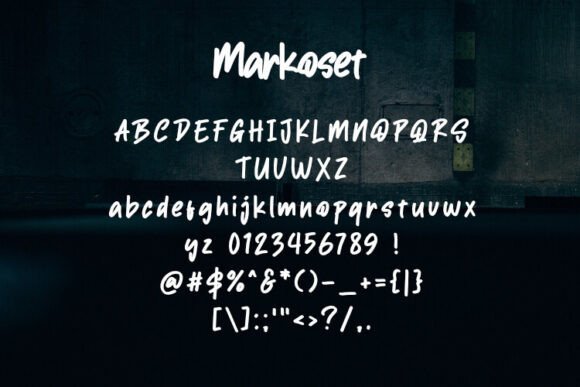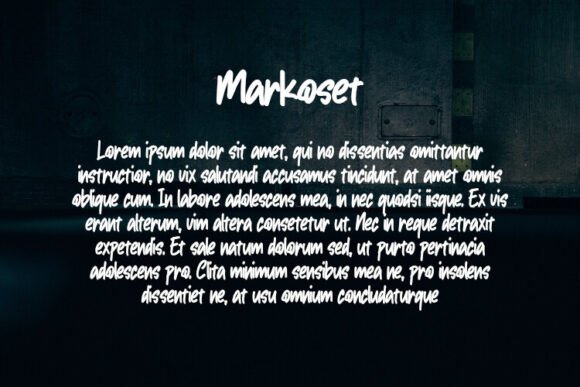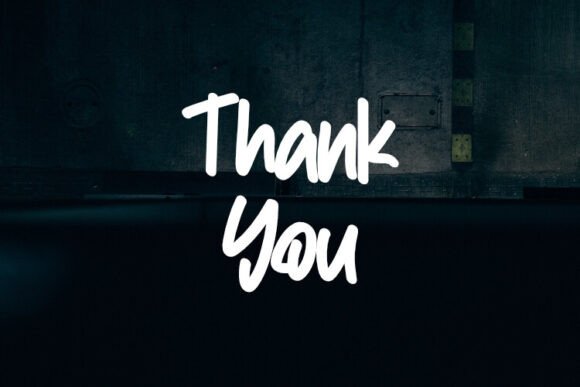
Introduction to Markoset Font
As a designer, you’ve likely found yourself stuck in a creative rut, searching for that perfect font to elevate your project. The moment you stumble upon a high-quality design resource that perfectly captures the essence of your vision is pure magic. For me, that moment came when I discovered the Markoset Font – a versatile and attractively crafted font that has been a game-changer for my creative projects.
From transparent backgrounds to intricate details, Markoset Font offers endless possibilities for your creative project. In this article, we’ll delve into the world of Markoset Font, exploring its features, benefits, and how you can incorporate it into your next design. Get ready to unlock the full potential of your designs with this incredible design resource!
Key Features of Markoset Font
- High-quality design resource perfect for creative projects
- Transparent background for seamless integration into various design elements
- Available in a range of sizes, from 18 to 72 points, making it versatile for various applications
- High-resolution design (300 DPI) suitable for print and digital use
- Unique, modern script font ideal for adding a touch of elegance to any creative project
Honest Review: Markoset Font
I recently came across the Markoset Font while searching for high-quality design resources. I was excited to give it a try and see if it could elevate my creative projects.
Here are some things that work well with the Markoset Font:
- ✨ Unique and creative design that stands out from the crowd
- ✨ Transparent background makes it easy to layer and combine with other design elements
- ⚠️ Limited font sizes and styles, which can make it difficult to customize for certain projects
- ⚠️ Some users may find the font too playful or whimsical for more formal or professional designs
Overall, I’m impressed with the Markoset Font as a design resource. It’s a great choice for creative projects that require a unique and eye-catching font. While it may not be suitable for every design need, I appreciate the high-quality design and transparent background.
Tips for Getting the Most Out of Markoset Font
For the best results, use the Markoset Font in conjunction with other high-quality design resources. Experiment with different font sizes, colors, and layouts to create unique and eye-catching visuals.
The Markoset Font is perfect for:
- Creating social media graphics and posts
- Designing business cards and marketing materials
- Developing branding and logo designs
Alternatives to Markoset Font
Great Vibes is a high-quality, elegant script font ideal for creative projects, such as wedding invitations, and design resources like quotes and posters. It features a transparent background and a beautiful, handwritten feel. When to use: For projects that require a sophisticated, yet playful touch.
Comparison to Markoset Font: While both fonts have a similar elegant feel, Great Vibes has a more refined and polished appearance, making it suitable for more formal projects.
Alex Brush is a high-quality, calligraphy-inspired font perfect for design resources like branding and marketing materials. It features a transparent background and a beautiful, flowing feel. When to use: For projects that require a touch of elegance and sophistication.
Comparison to Markoset Font: Alex Brush has a more rustic and vintage feel compared to Markoset Font, making it suitable for projects that require a more laid-back, organic look.